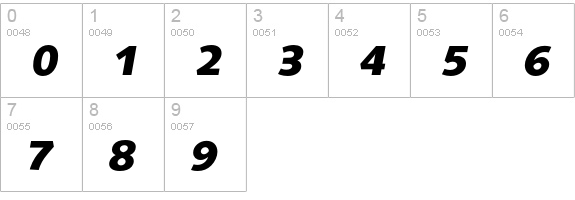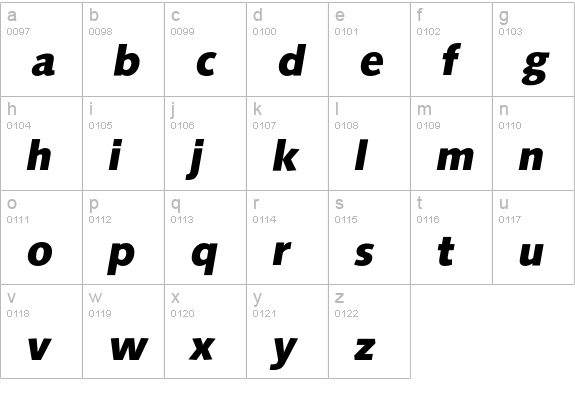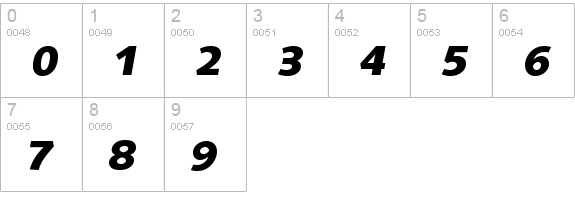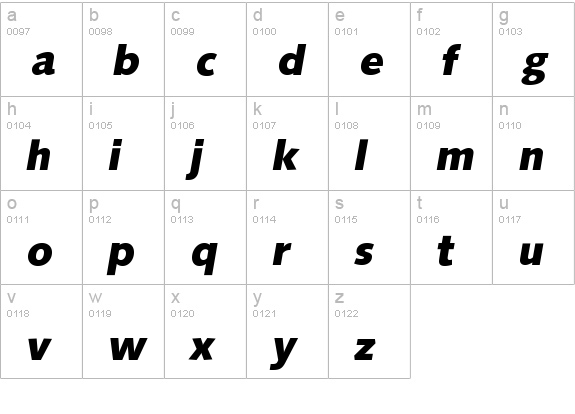
Saxony-BoldIta Font Details
Saxony-BoldIta font is a stunning and versatile typeface that exudes elegance and sophistication. Its bold and italic design adds a touch of flair to any project, making it the perfect choice for both professional and creative endeavors. This font's sleek and stylish curves give it a modern yet timeless appeal, capturing attention and leaving a lasting impression. With its strong and distinctive characters, Saxony-BoldIta font is ideal for headlines, titles, and any text that needs to make a bold statement. Whether you're designing a logo, creating a magazine layout, or crafting invitations, this font will effortlessly elevate your work to new heights. One of the best aspects of Saxony-BoldIta font is that it is completely free! You can easily download it at FontsMarket.com, a trusted resource for high-quality fonts. This means that you can add this exceptional typeface to your design arsenal without breaking the bank. The versatility of Saxony-BoldIta font is further enhanced by its extensive character set, including punctuation marks, numerals, and special characters. This ensures that you have all the tools you need to bring your creative vision to life. Whether you're a professional designer or an aspiring artist, Saxony-BoldIta font is a must-have in your collection. Its eye-catching design, combined with its accessibility and affordability, makes it a true standout. Download Saxony-BoldIta font today and let your creativity soar.